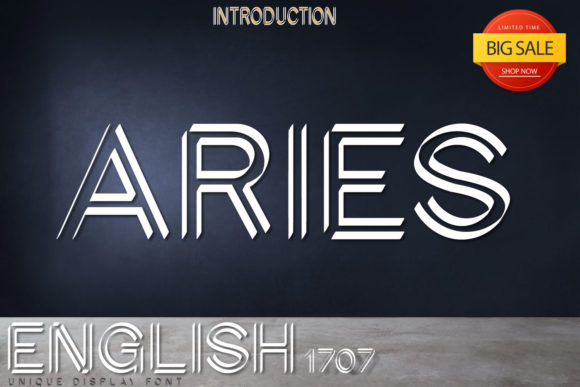
Dive into the world of cinematic allure with English 1707, a display font born from the fusion of classic elegance and modern charm. Its captivating presence transports you to the silver screen, where every letter dances with the grace of a leading actor. From epic blockbusters to heart-wrenching dramas—English 1707 is your gateway to crafting movie titles that resonate with power and emotion.
Unleash the cinematic masterpiece within your designs, letting English 1707 take center stage. Its versatility knows no bounds, effortlessly adapting to posters, flyers, and print projects alike. With a mere click, you hold the key to transforming ordinary words into cinematic wonders, igniting the imagination, and leaving audiences spellbound.
Picture your movie title adorning the grand marquee, captivating the eyes of eager moviegoers. English 1707's refined strokes command attention, promising an unforgettable cinematic journey. Each letter carries the weight of anticipation, hinting at the epic tale waiting to unfold. Let English 1707 set the tone for your cinematic masterpiece, captivating audiences from the very first frame.
Whether you seek to evoke the grandeur of historical epics or the raw intensity of action thrillers, English 1707 stands ready as your creative ally. Its timeless design transcends genres, effortlessly capturing the essence of any cinematic vision. With English 1707 at your fingertips, you possess the power to forge an instant connection with your audience, drawing them into the heart of your cinematic storytelling.
Dare to dream in cinematic dimensions, where your movie titles leap off the screen with an unparalleled presence. English 1707 beckons you to embrace the spotlight, to create titles that linger in the memory long after the credits roll. Experience the transformative power of a font crafted for the silver screen, where every word carries the weight of a thousand stories waiting to be told.